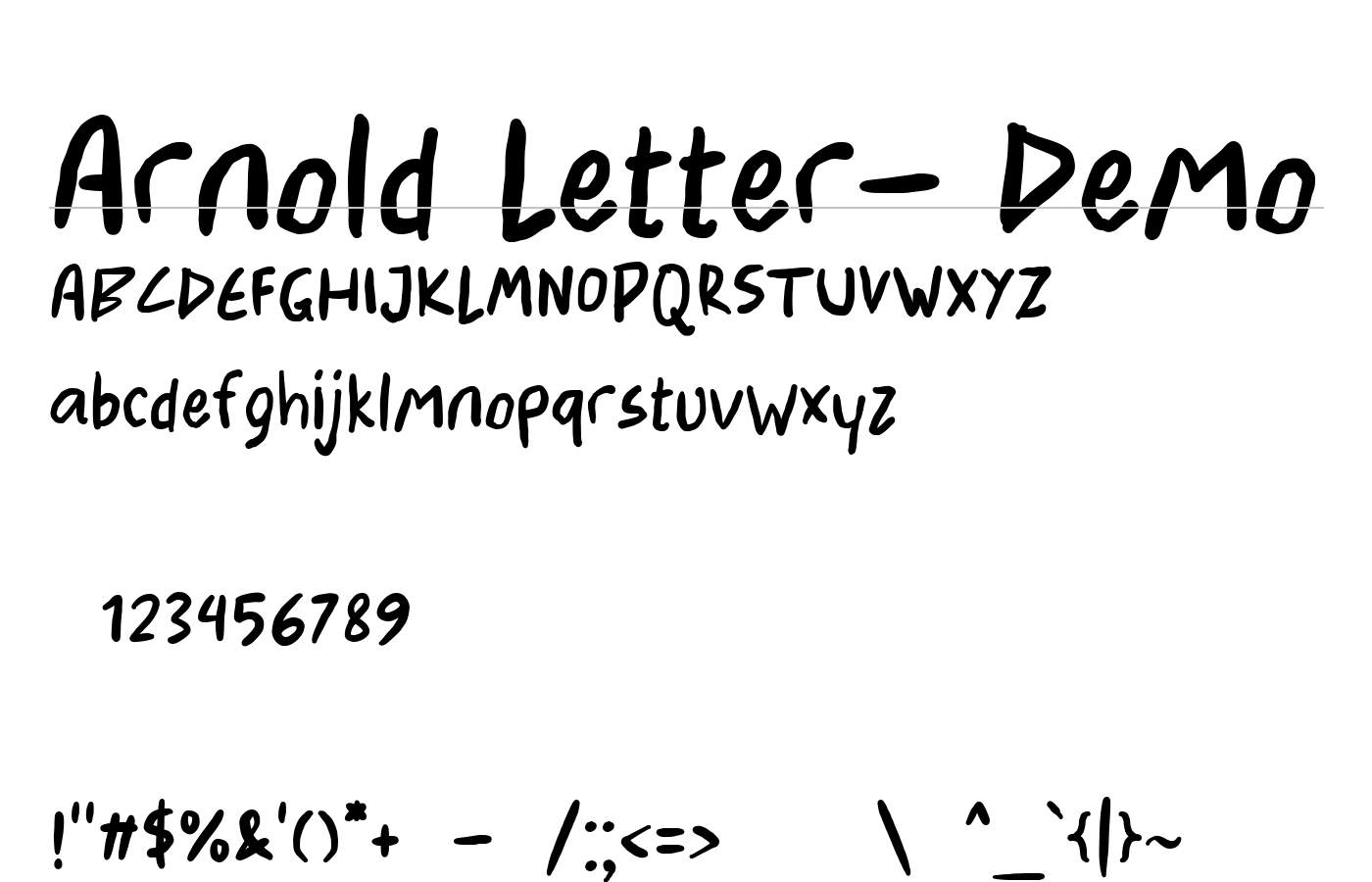
Arnold Letter-Demo is a playful and casual handwritten sans serif font with a lively, organic feel. Its irregular strokes and slightly condensed letterforms give it a friendly and approachable character, making it perfect for informal designs, creative projects, and personal branding that seek a warm, human touch. This font works well for headlines, logos, and social media graphics where a relaxed and unique personality is desired.
Arnold Letter- Demo Font
About Arnold Letter- Demo Font
| Font family | Arnold Letter- Demo Font |
| Designer | Tera Asset Garage |